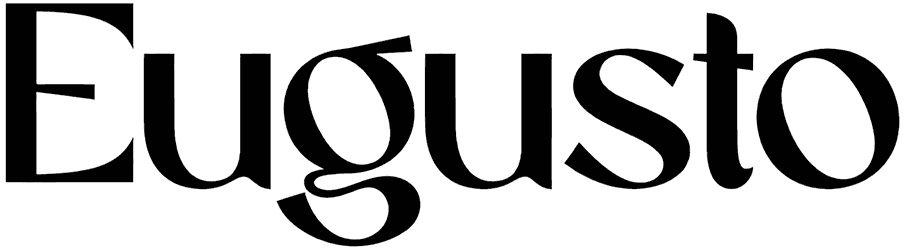
Eugusto Font
Have you ever seen a serif font made with a combination of smooth lines and sharp edges that can also give off a classic and modern touch at the same time? Here is Eugusto, which contains all those mentioned features.
It has a thick, charming display and has the potential to customize with any of your favorite designs. This luxury font will be perfectly used for movie posters, magazine/book covers, apparel prints, branding materials, and advertising aims.